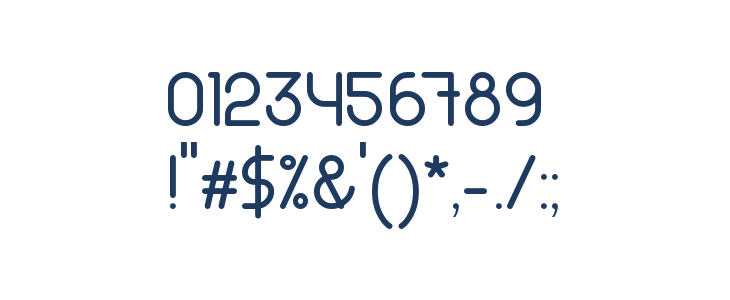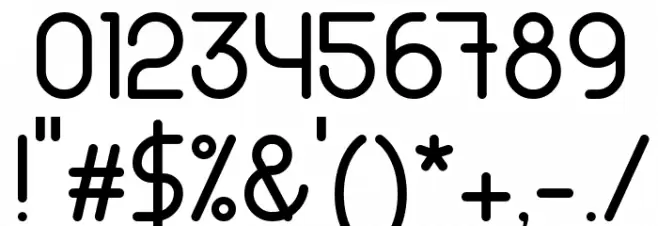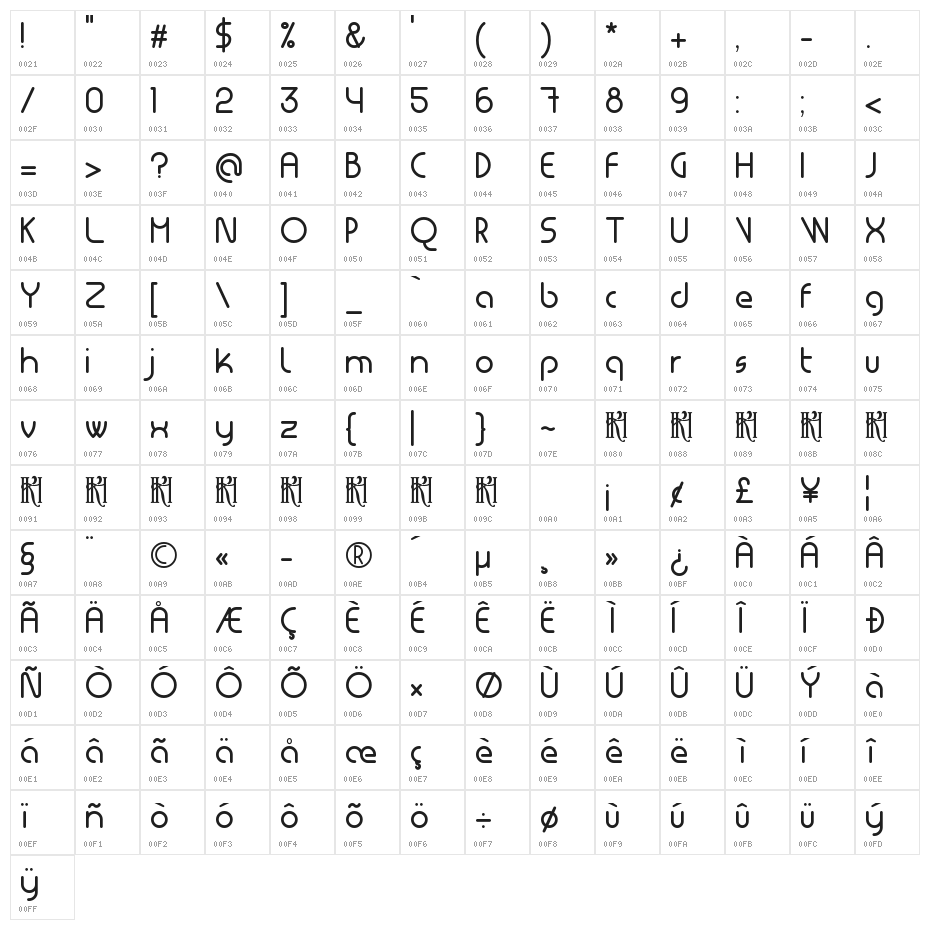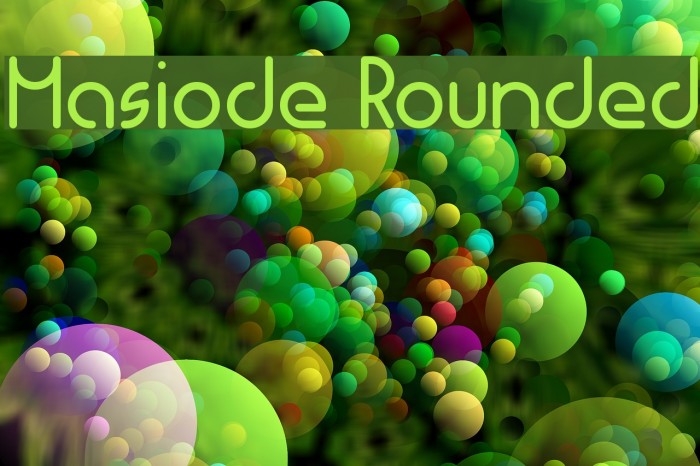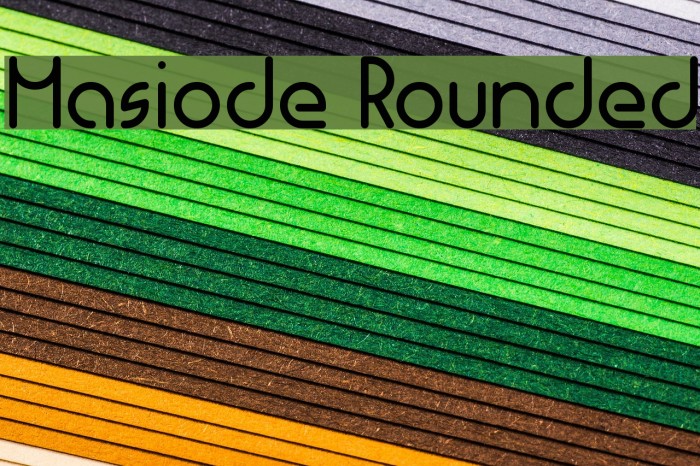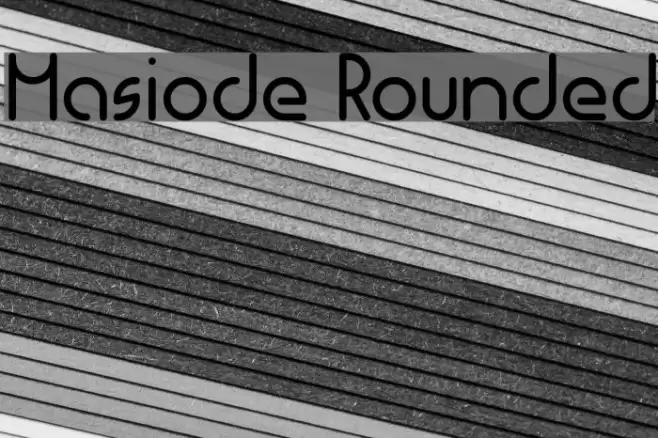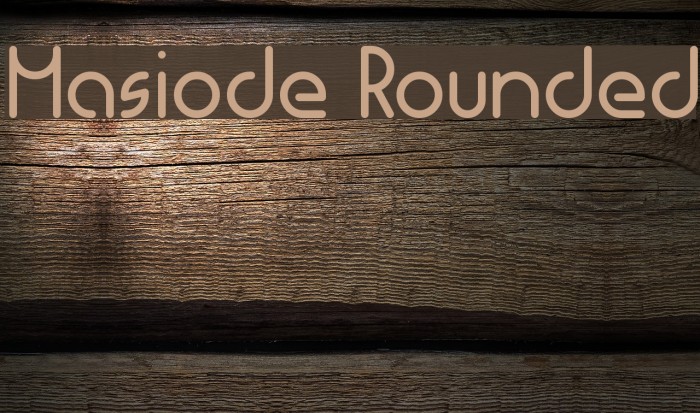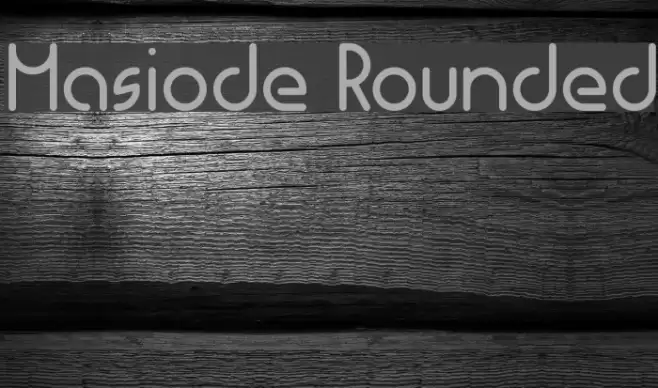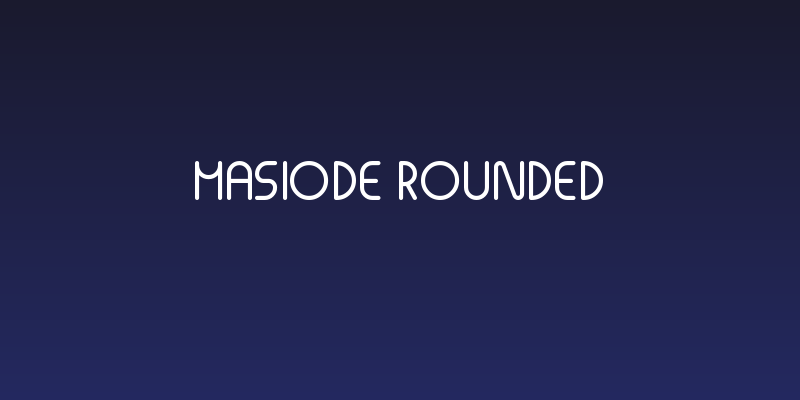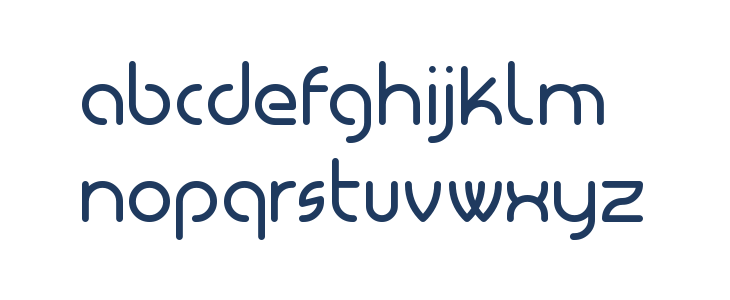
Masiode Rounded Font
Masiode Rounded Description
This font features a modern, rounded design with smooth curves and a clean, minimalist aesthetic. The characters are evenly spaced, providing a balanced and harmonious look. The uppercase and lowercase letters maintain a consistent style, with rounded edges that give a friendly and approachable feel. The numerals and special characters are designed to complement the alphabet, ensuring readability and visual appeal. This font is versatile, suitable for both digital and print media, and can be used in various design projects that require a contemporary and sleek appearance.